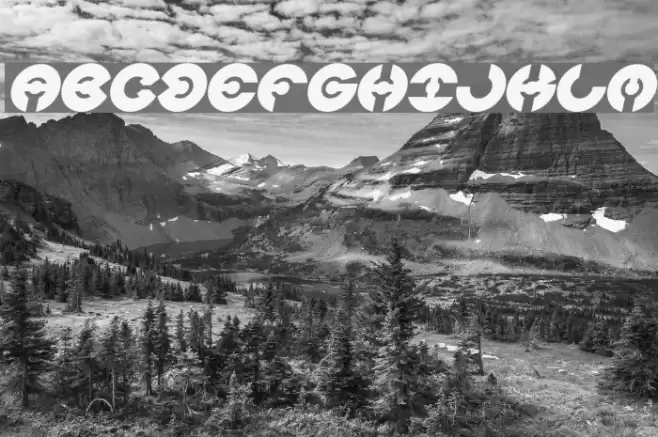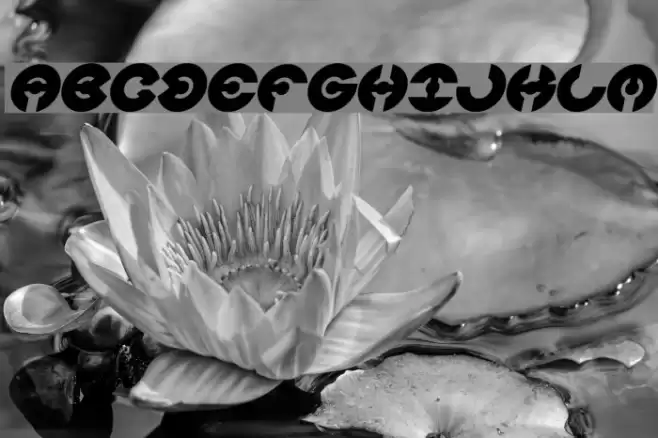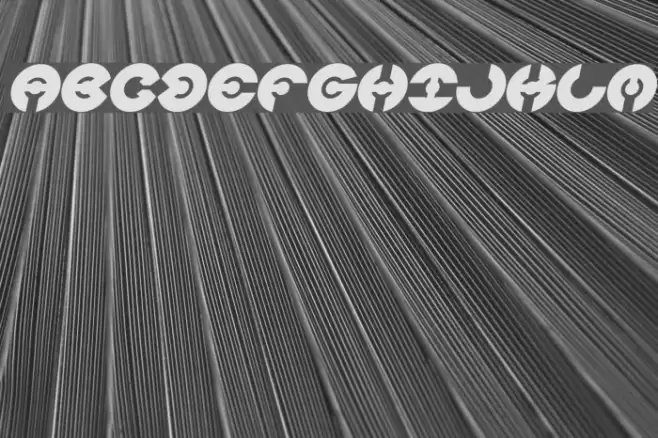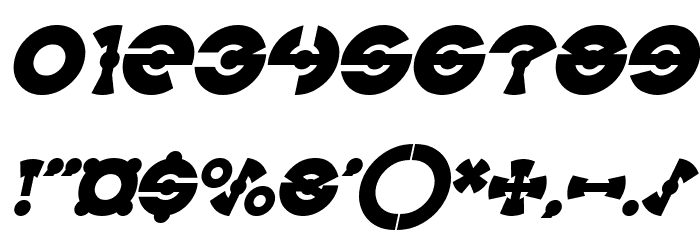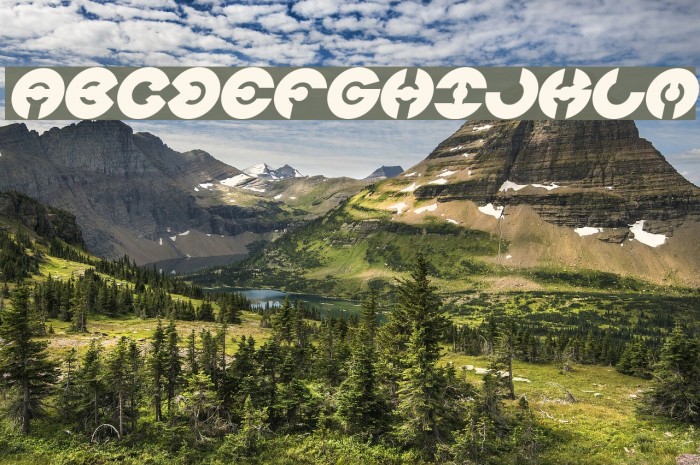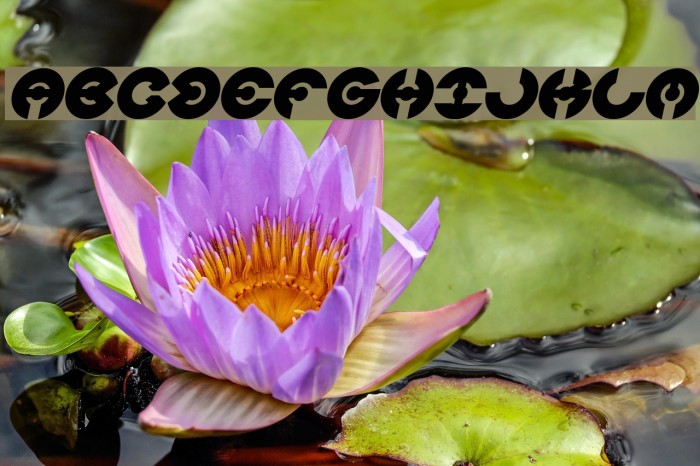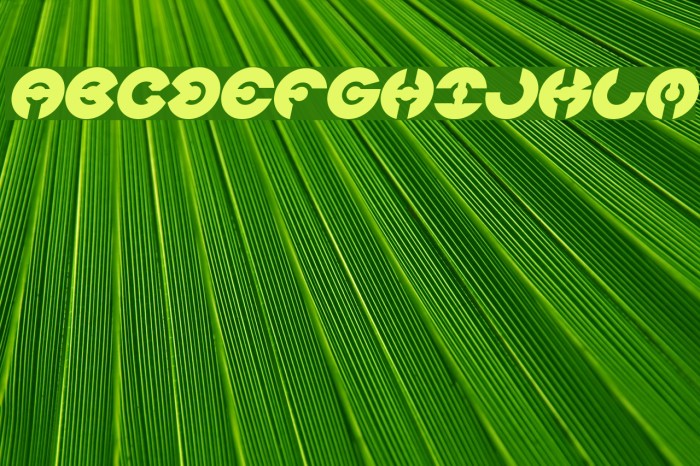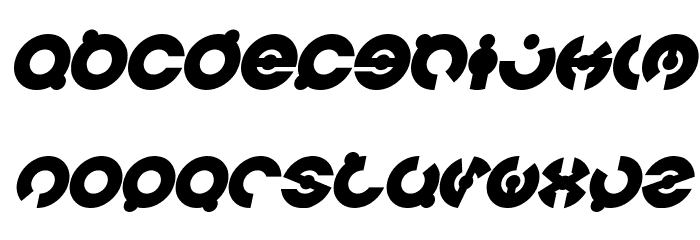
JAMES GLOVER Bold Italic Font
JAMES GLOVER Bold Italic Description
This font features a bold and italic style with a unique, futuristic design. The characters are composed of thick, rounded shapes with distinctive cutouts and geometric elements, giving it a modern and avant-garde appearance. The uppercase and lowercase letters maintain a consistent style, with the lowercase mirroring the uppercase in form. Numbers and special characters follow the same design principles, ensuring uniformity across all glyphs. The font's boldness and unique style make it stand out, while the italic slant adds a dynamic feel.
A bold, italic, futuristic font with geometric cutouts and rounded shapes from Uncategorized fonts.
- Proposed Projects: Ideal for sci-fi themed projects, modern branding, innovative product packaging, and eye-catching headlines.